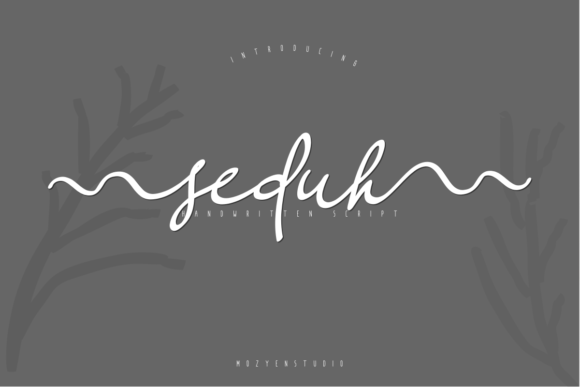
Indulge in the captivating allure of Seduh, a script font that will ignite your creativity and leave an unforgettable impression on your audience. Its delicate strokes and graceful swashes dance effortlessly across the page, evoking a sense of elegance and sophistication that will elevate your email signature to new heights.
Crafted with passion by the renowned mozyenstudio, Seduh embodies the essence of modern calligraphy, seamlessly blending tradition with innovation. Its intricate details and flowing lines will add a touch of timeless beauty to your emails, making them stand out from the ordinary.
Whether you're a professional seeking to make a statement or an individual yearning for a touch of personal style, Seduh is the perfect choice. Its versatility extends beyond email signatures, lending its charm to invitations, greeting cards, and any design project that calls for a touch of sophistication.
With Seduh, you'll experience the joy of crafting messages that are not only informative but also visually stunning. Its ability to convey emotions and personality through its graceful curves will captivate your readers, leaving them with a lasting impression.
Embrace the power of Seduh and transform your email signature into a work of art. Let its enchanting allure become your secret weapon, leaving a trail of elegance and inspiration with every message you send.